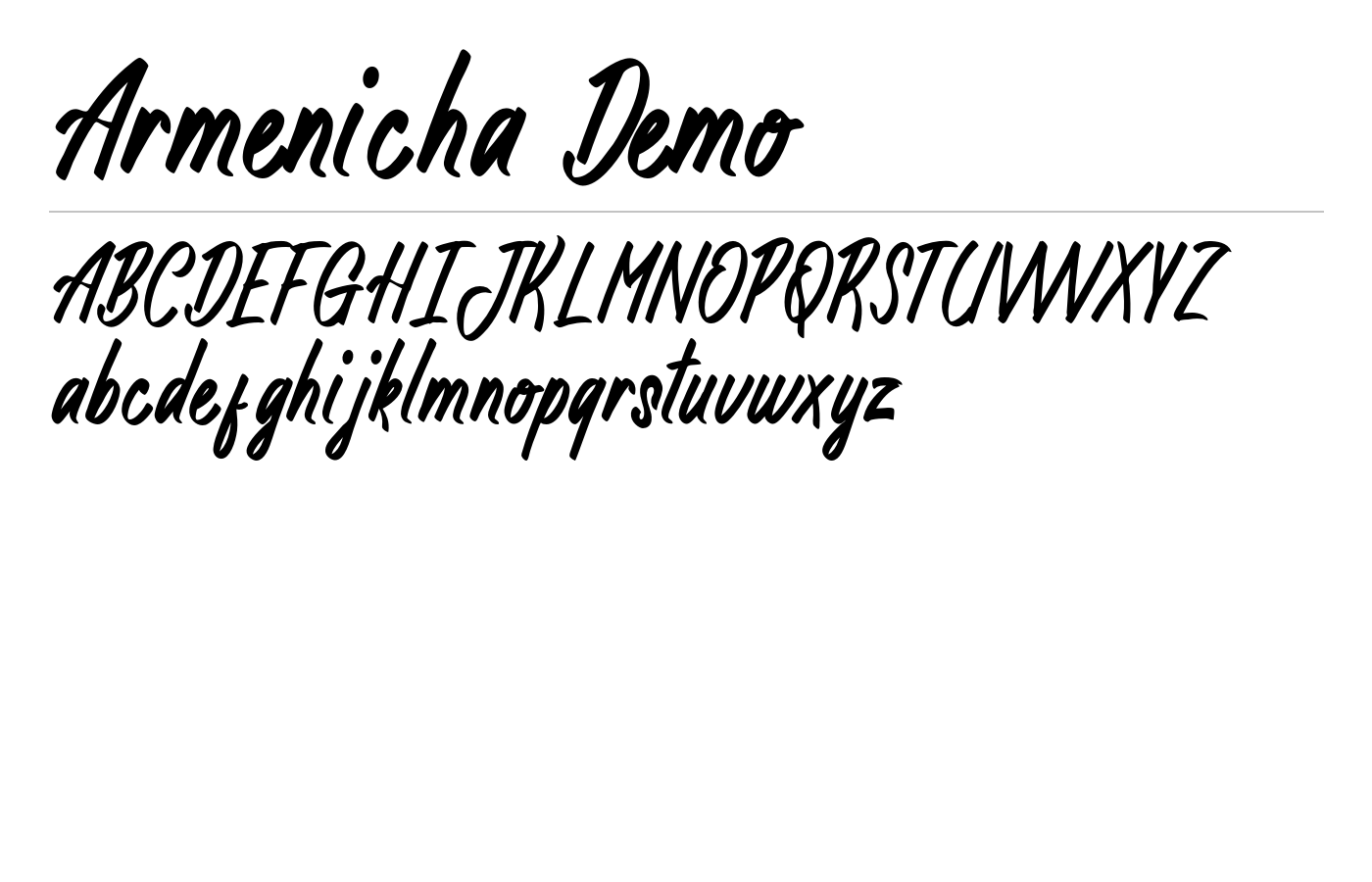
Armenicha Demo is a lively script font with a casual, handwritten feel, featuring fluid and dynamic strokes that convey energy and personality. Its slightly slanted, brush-like letterforms make it an excellent choice for creative branding, invitations, and headlines looking for a friendly yet stylish touch. This font works beautifully in designs that aim to communicate warmth, approachability, and artistic flair.
Armenicha Demo Font
About Armenicha Demo Font
| Font family | Armenicha Demo Font |
| Designer | Krisna Teja |